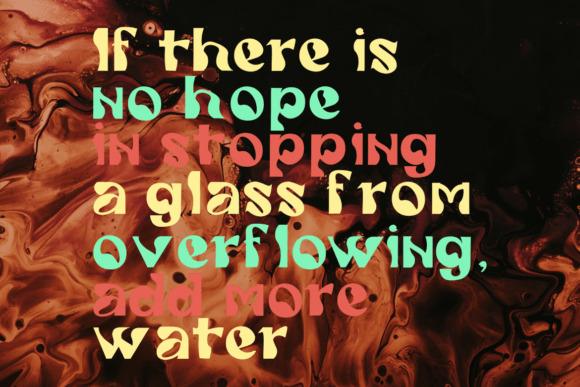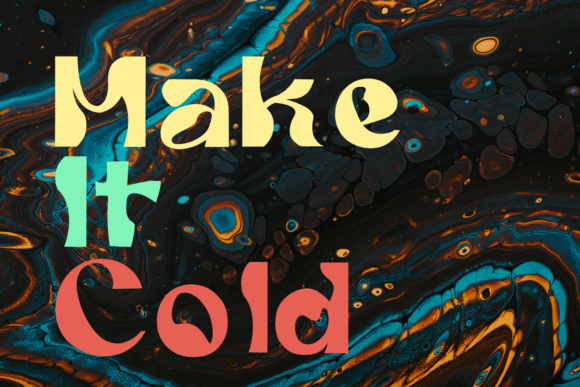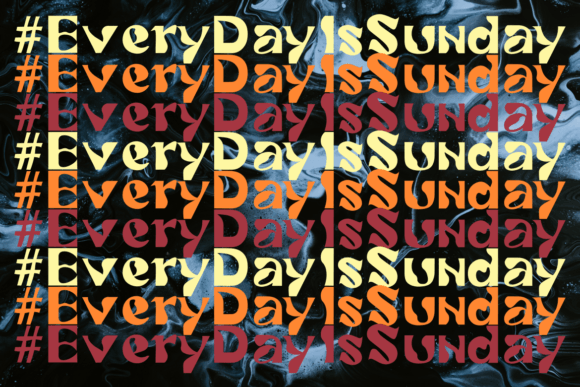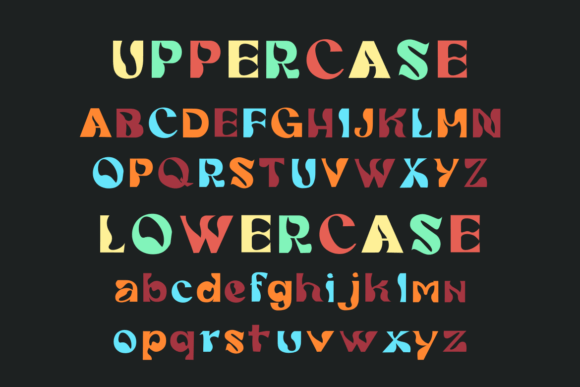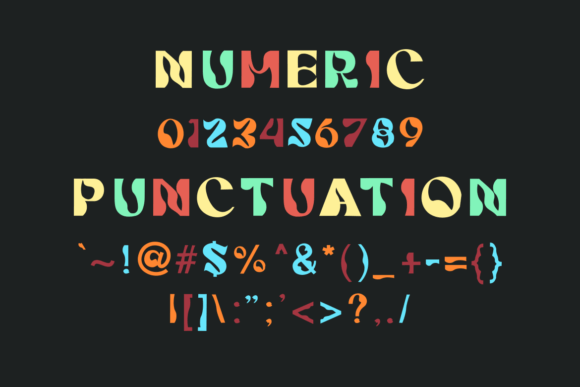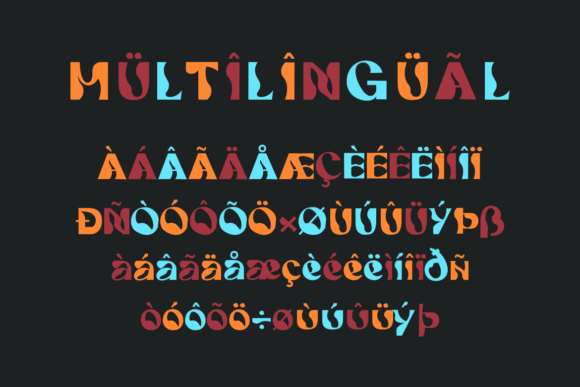
Dausse Font: The Quirky Display Font for Creative Designs
In the world of typography, fonts play a crucial role in making or breaking a design. A font can elevate your design, making it more engaging, readable, and visually appealing. One such font that has been gaining attention in recent times is the Dausse font. This unique and interesting display font is perfect for designers and crafters looking to add a touch of quirkiness to their designs.
What Makes Dausse Font Special?
Dausse font is a little bit quirky, but that’s what makes it stand out from the rest. Its unique design makes it incredibly adept at a wide variety of contexts, from titles and typography to posters, magazines, brochures, packaging, websites, and more. Whether you’re a designer, crafter, or simply someone who loves to dabble in creative projects, Dausse font is an excellent choice to make your designs more cool.
Key Features of Dausse Font
So, what makes Dausse font so special? Here are some of its key features:
- Unique Design: Dausse font boasts a one-of-a-kind design that sets it apart from other fonts.
- Quirky yet Readable: Despite its quirky nature, Dausse font remains highly readable, making it perfect for a wide range of applications.
- Versatile: Dausse font can be used in various contexts, from print materials like posters and brochures to digital platforms like websites and social media.
Use Cases for Dausse Font
Dausse font is an incredibly versatile font that can be used in a wide range of applications. Here are some use cases to get you started:
- Title and Typography: Use Dausse font to create eye-catching titles and typography that will make your designs stand out.
- Posters and Magazines: Dausse font is perfect for creating bold and attention-grabbing posters and magazine headers.
- Brochures and Packaging: Add a touch of quirkiness to your brochures and packaging with Dausse font.
- Websites and Social Media: Use Dausse font to create engaging and readable content for your website or social media channels.
Tips for Using Dausse Font
To get the most out of Dausse font, here are some tips to keep in mind:
- Experiment with Sizes: Dausse font looks great in various sizes, so don’t be afraid to experiment to find the perfect fit for your design.
- Play with Colors: Dausse font comes alive with color, so try pairing it with bold and bright hues to create a statement piece.
- Mix and Match: Don’t be afraid to mix and match Dausse font with other fonts to create a unique and interesting design.
In conclusion, Dausse font is a unique and interesting display font that’s perfect for designers and crafters looking to add a touch of quirkiness to their designs. Its versatility, readability, and ease of use make it an excellent choice for a wide range of applications. Whether you’re creating titles, typography, posters, magazines, brochures, packaging, websites, or social media content, Dausse font is sure to make your designs more cool. So why not give it a try and see the difference it can make in your designs?